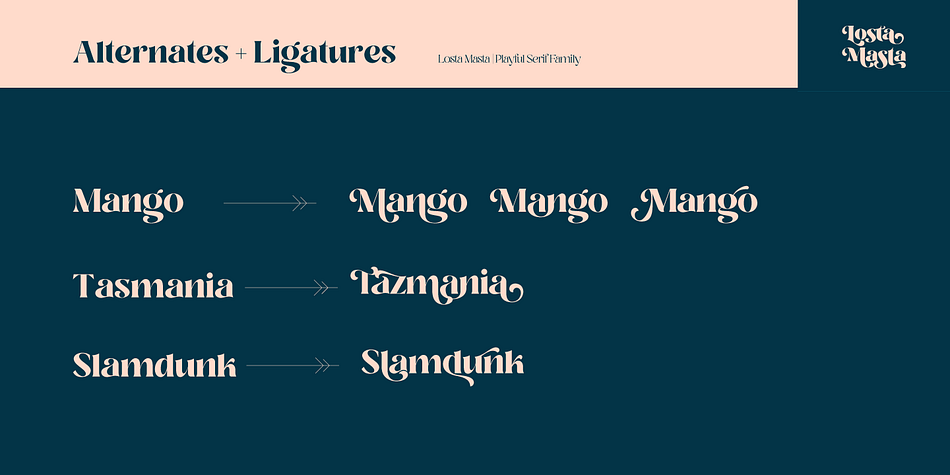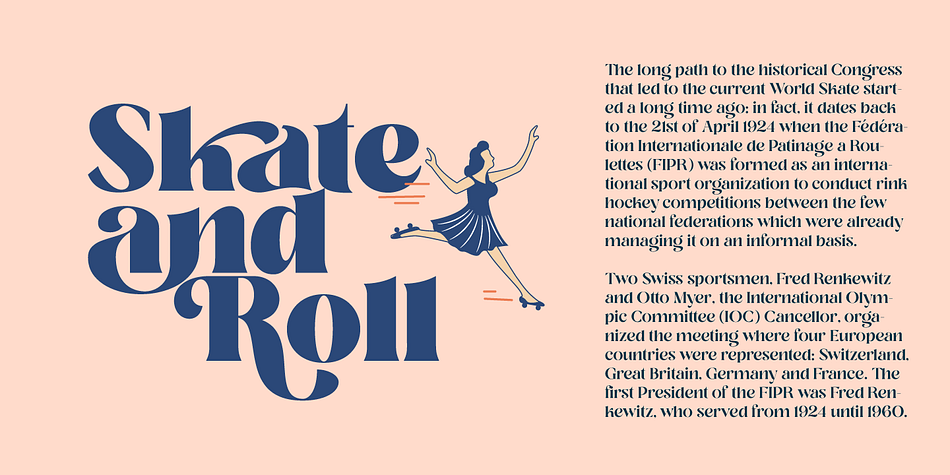
Losta Masta
Losta Masta is a display, display serif and dingbat font family. This typeface has eight styles and was published by Creative Media Lab.
Losta Masta - fun and playful serif family.
Unique, playful and versatile serif family with 40+ ligatures and 100+ alternates that you can combine to get curves and beautiful shapes just in seconds.
type the words and Add the unique shapes from Losta Masta ornament to get more stunning display.
This font is suitable for use in many design forms, for example magazines, postcards, logos, DIY Projects, invitation card, quotes, vintage look design, old classic ,60s, 70s, 80s era, wedding projects and much more. We recommend using Adobe Illustrator or Photoshop.